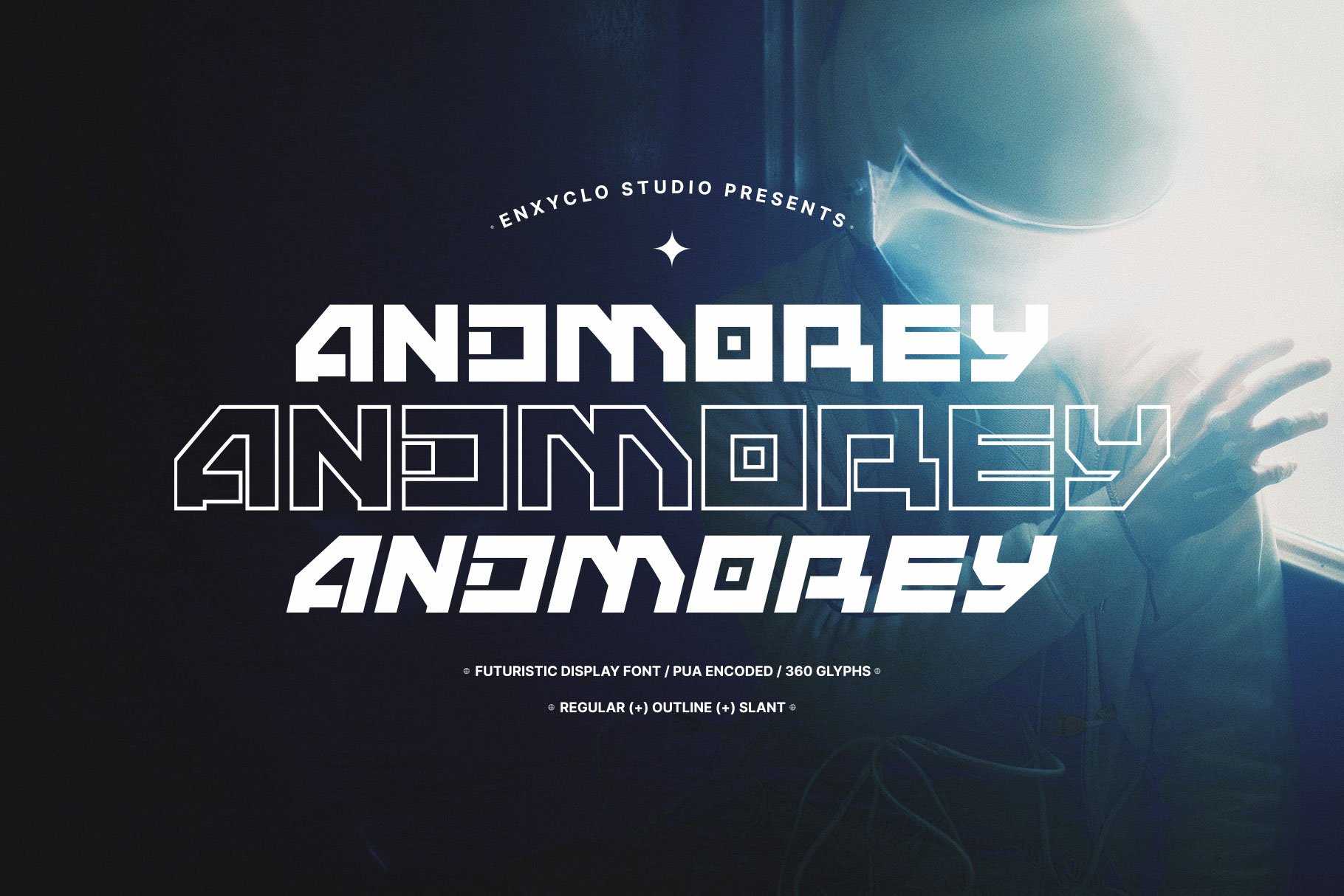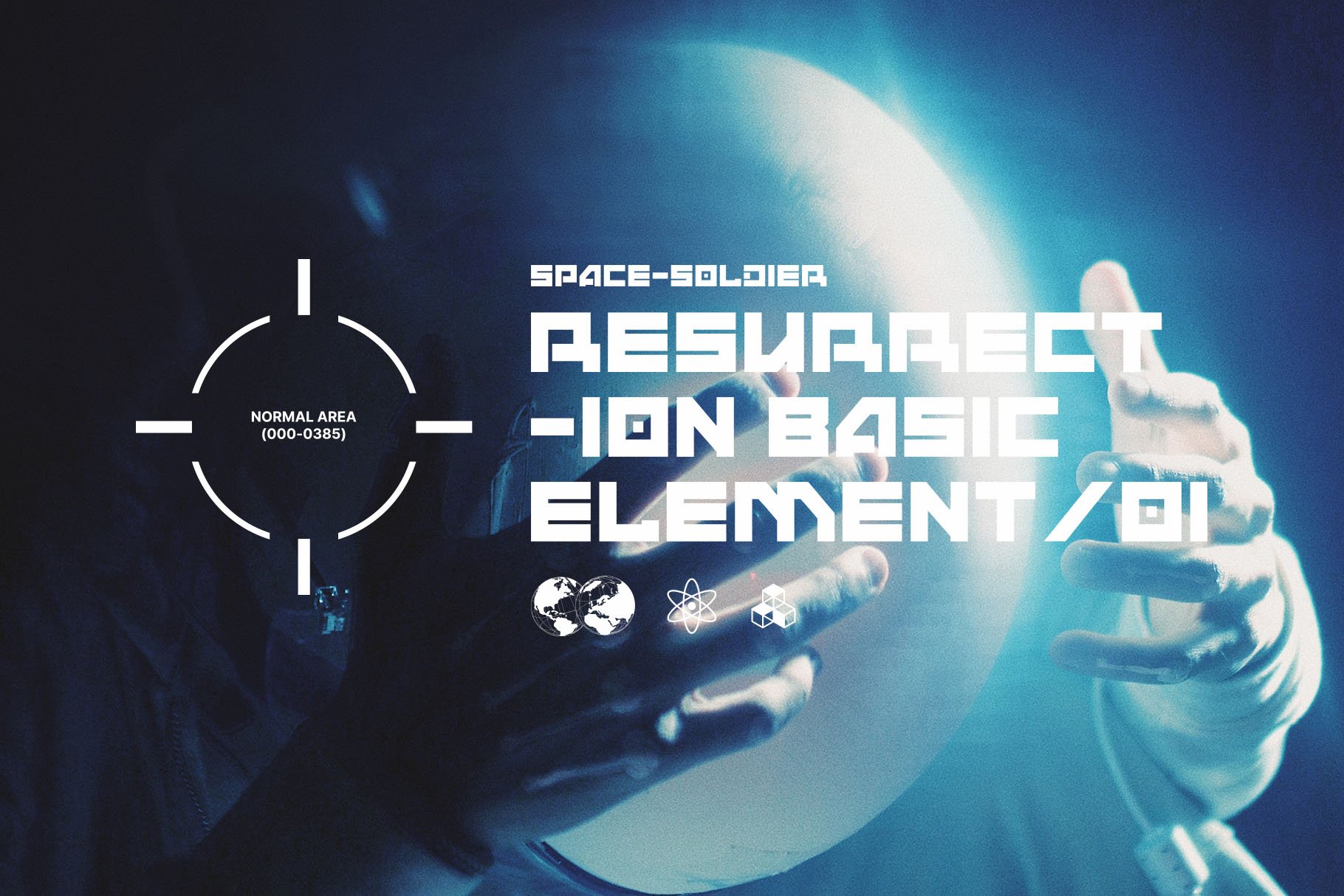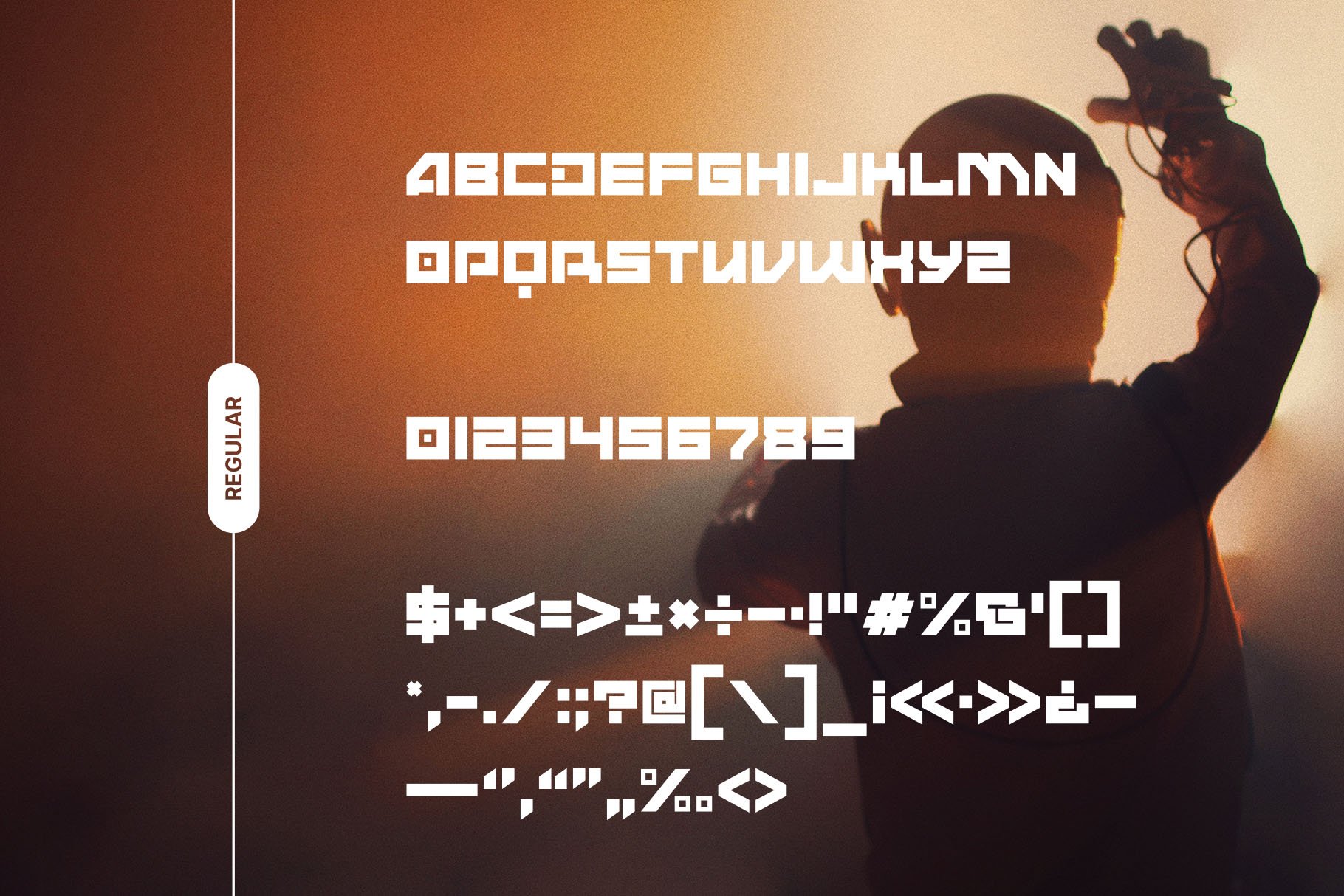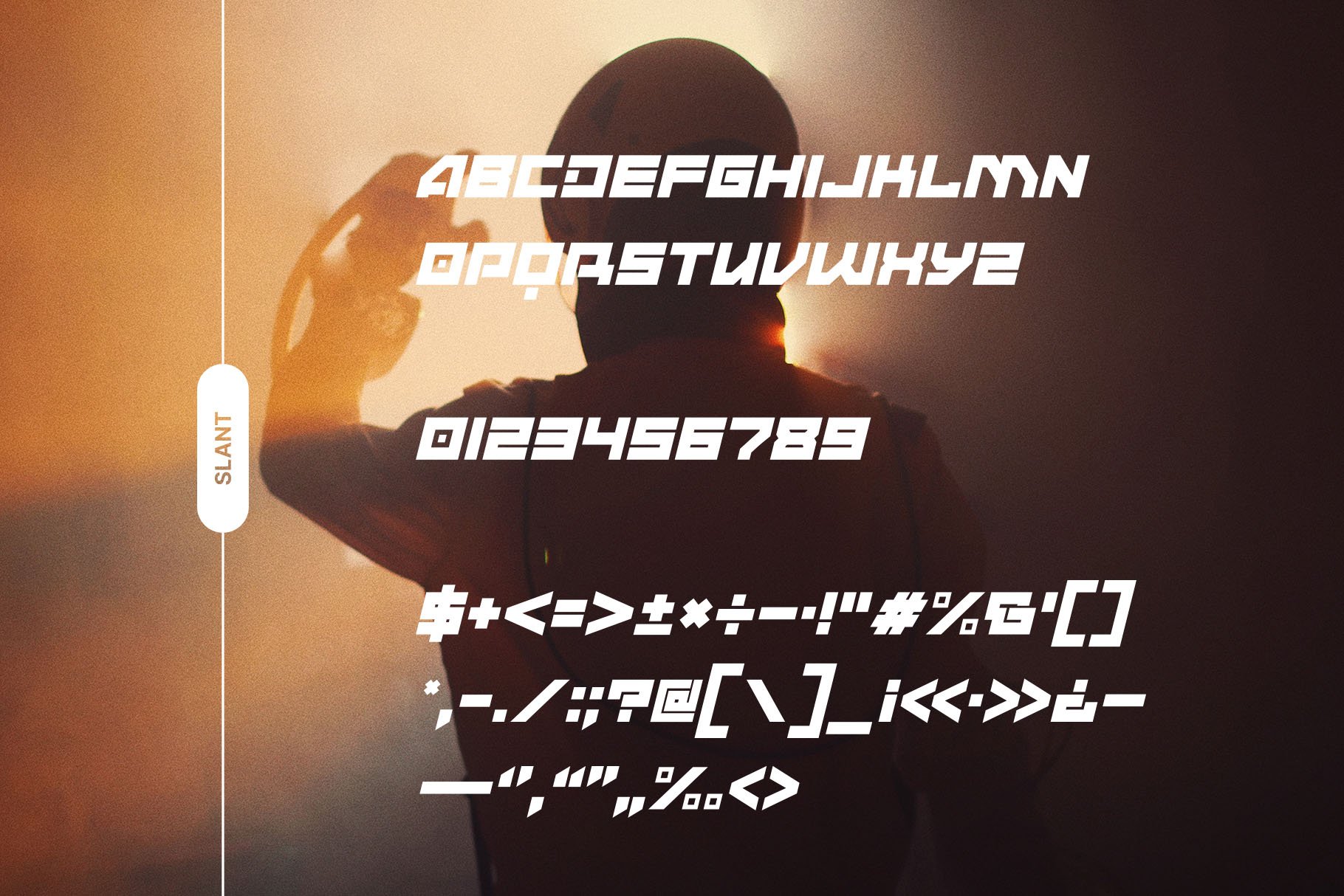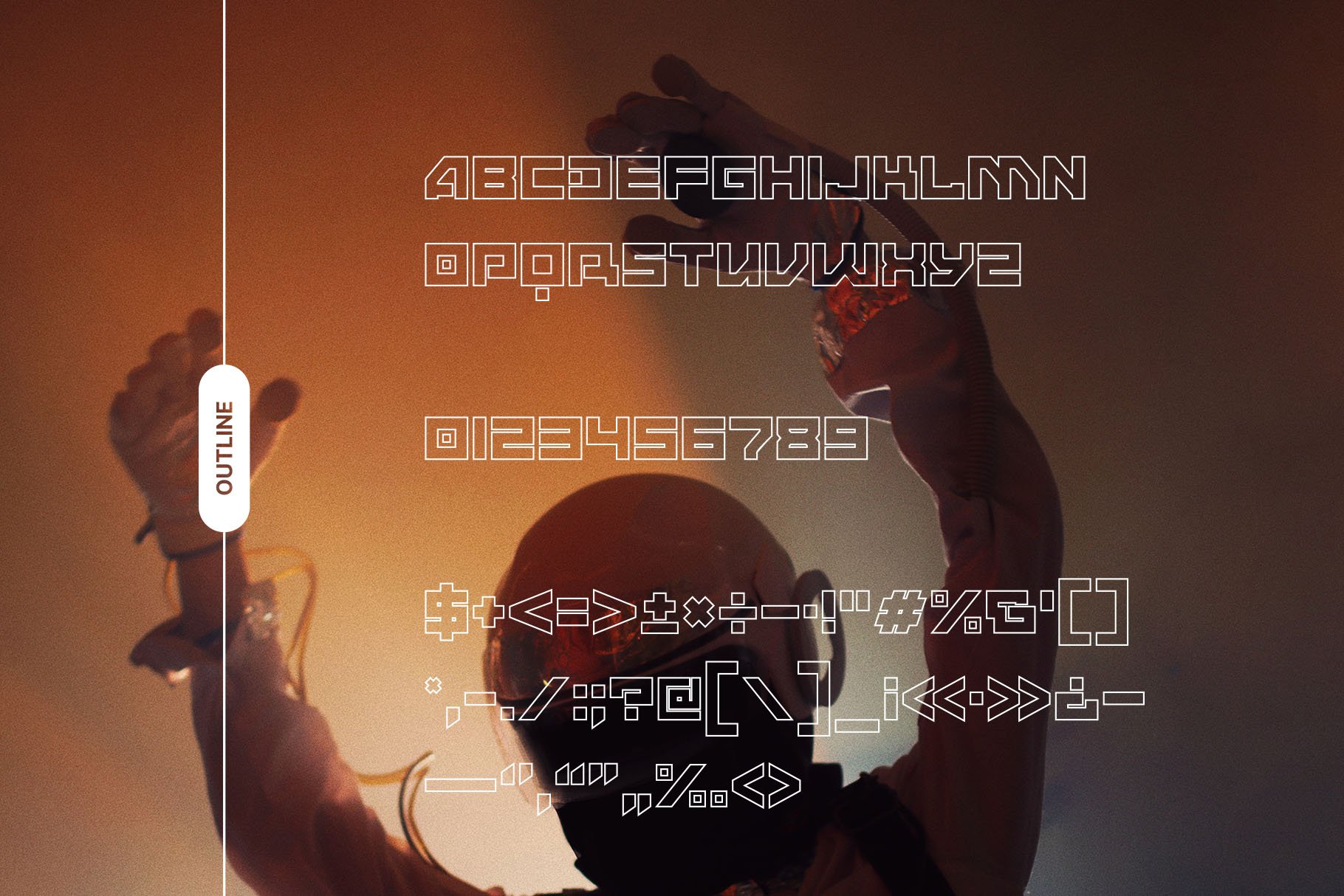
ANDMOREY is futuristic display font. The design of typeface will make your project more powerful and inspiring. It is perfect for headline, billboard, magazines, website, titles, poster, branding, thumbnail, t-shirt design, street wear design, and creative logos, or any project that needs futuristic touch. With this beautiful futuristic display font, absolutely you can make your project stand out from the rest. See the previews above to get some inspiration on how to use them.
FEATURES
• 3 Styles: Regular, Outline and Slant
• Contains 120 Glyphs for Each Style (Total 360 Glyphs)
• Uppercase Only
• Numeral, Punctuation & Symbol